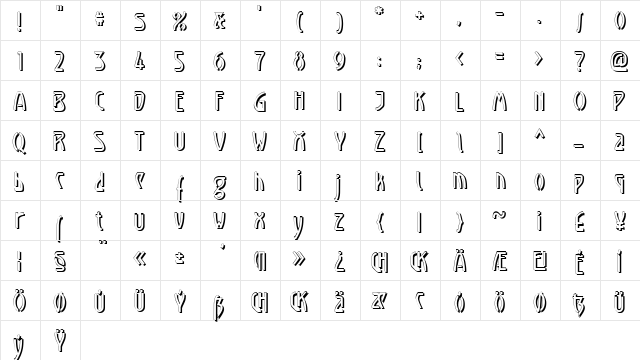
Loxembourg 1910 Shadow Regular
| Foundry | Peter Wiegel |
| Designer | Peter Wiegel |
Design Context for Loxembourg 1910 Shadow Typeface
Loxembourg 1910 Shadow is built around its visual character rather than neutral utility — its distinctive forms are designed to make an impression at display sizes.
Font Pairing: Pair with a clean neutral sans-serif for body copy to let Loxembourg 1910 Shadow's character lead without overwhelming the composition.
Pro Tip: Use Loxembourg 1910 Shadow exclusively at display sizes — it was designed to be seen, not read at length. Let a neutral companion handle body copy.